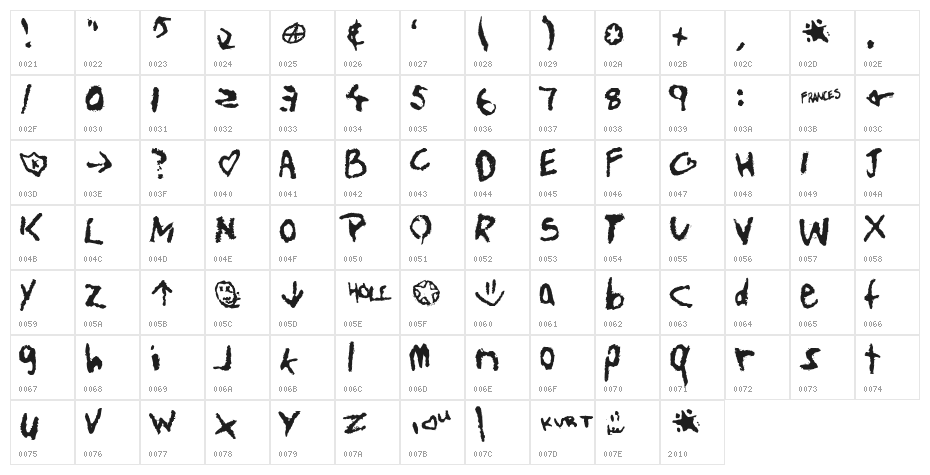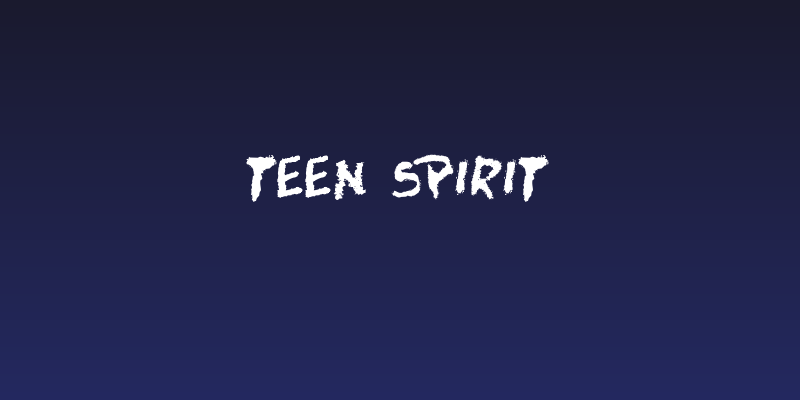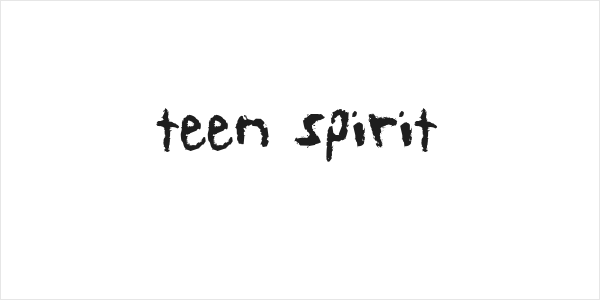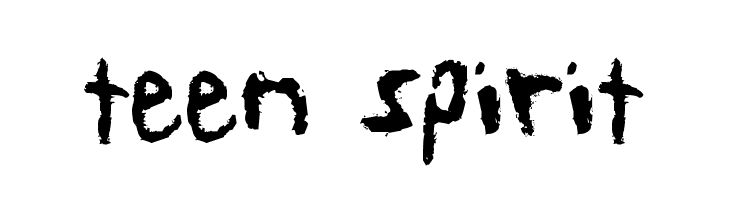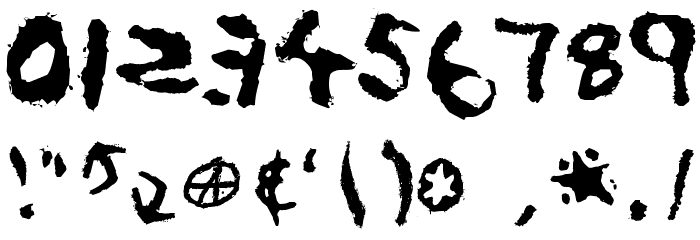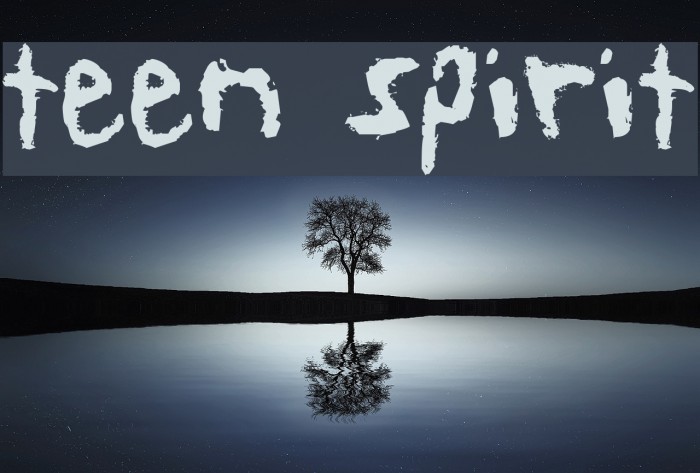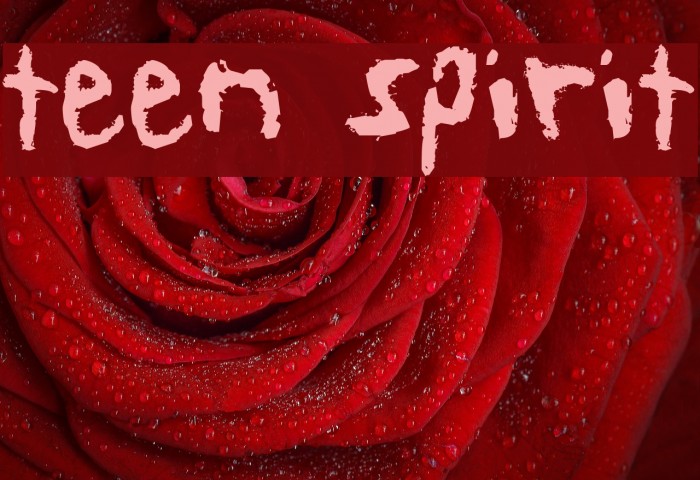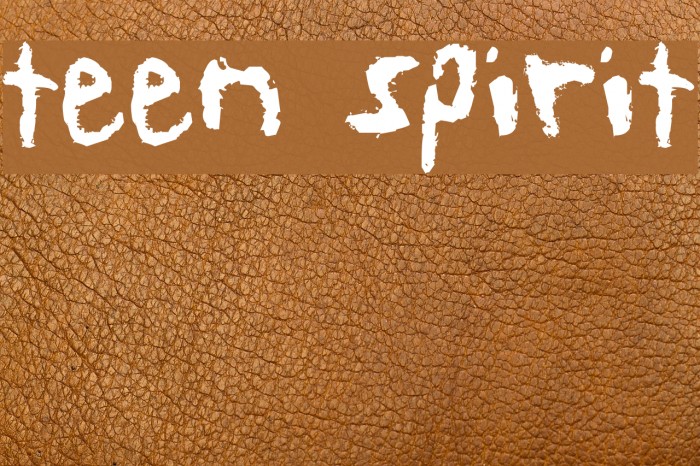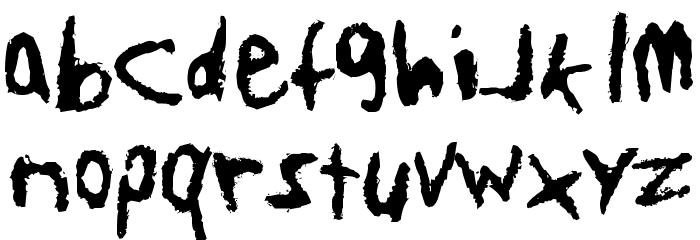
teen spirit Font
teen spirit Description
This font exudes a raw, grunge aesthetic reminiscent of the rebellious spirit of the 1990s. The characters are bold and uneven, with a hand-drawn appearance that gives them a unique, edgy vibe. The strokes are thick and irregular, creating a sense of movement and energy. The uppercase and lowercase letters maintain a consistent style, while the numbers and special characters add to the font's eclectic charm. The overall look is both chaotic and artistic, making it perfect for projects that require a touch of unconventional flair.
| Overall Style | Grunge, Artistic, Rebellious |
| Proposed Projects | Ideal for music album covers, posters, streetwear branding, and edgy editorial designs. |